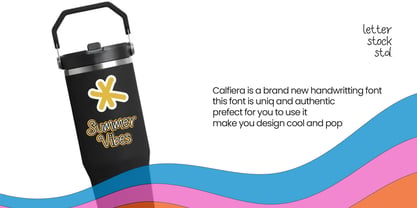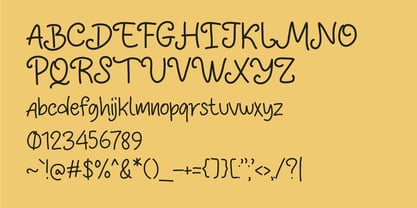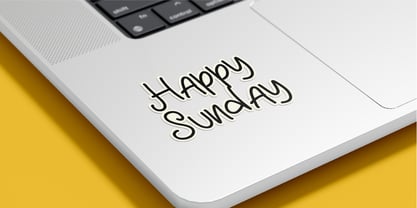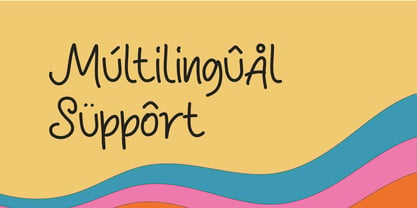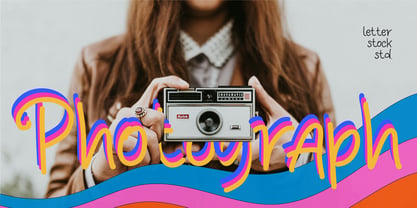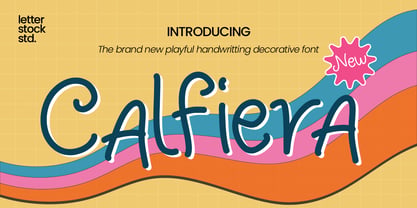
Calfiera
The Calfiera Font Family was designed by Studio LetterStock and published by LetterStock. Calfiera contains 1 styles. More about this family
Calfiera is a charming handwritten font that captures the warmth and personality of natural handwriting. With its soft curves and relaxed strokes, Calfiera brings a friendly and authentic touch to any design. Inspired by retro aesthetics and playful creativity, this font blends vintage vibes with a lighthearted character, making it perfect for designs that feel nostalgic, cheerful, and full of personality. Calfiera is designed to look effortless and organic, giving your typography a human and approachable feel. This font works beautifully for retro-themed designs, kids projects, creative branding, packaging, posters, greeting cards, and social media graphics. Whether you're creating playful visuals for children or nostalgic retro layouts, Calfiera adds a warm and expressive handwritten touch. Calfiera helps designers create designs that feel personal, joyful, and timeless. Perfect for: Retro style designs, Kids themed graphics, Posters & headlines, Packaging design, Greeting cards, Social media graphics, Creative branding, Invitations